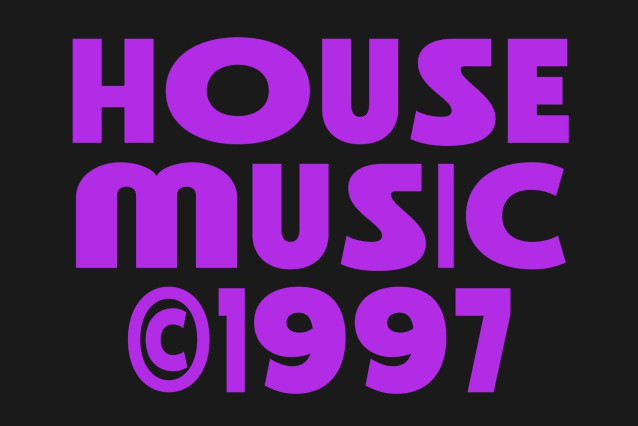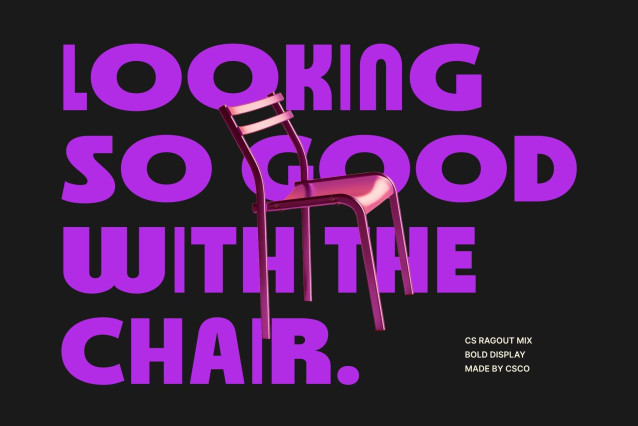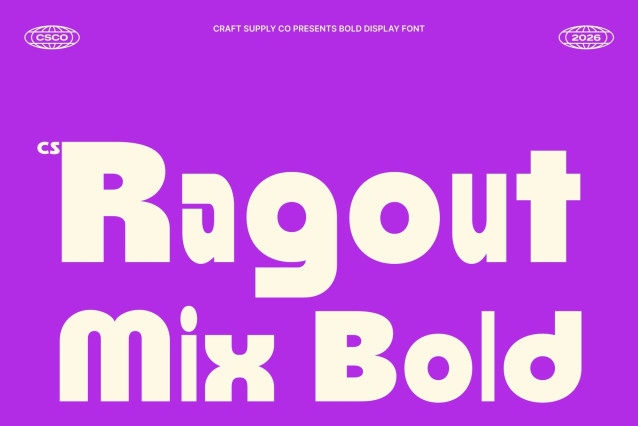
CS Ragout Mix Font
CS Ragout Mix – Bold Display Sans Serif: Funky Energy with Confident Modern Style
Bold Display Sans Serif with Mixed Style Character
This is a modern sans serif display font designed to combine bold strength with playful creative energy. Built with thick dynamic forms and expressive details, this typeface introduces a distinctive mixed-style concept that adds rhythm, contrast, and personality to every composition.
A Dynamic Blend of Bold and Regular Letterforms
The defining feature of this font lies in its creative fusion of bold and regular styles. This mixed-weight approach creates visual movement and energetic hierarchy, making headlines feel more expressive and engaging. The contrast between strong strokes and balanced forms enhances readability while adding a unique contemporary character that stands out across different layouts.